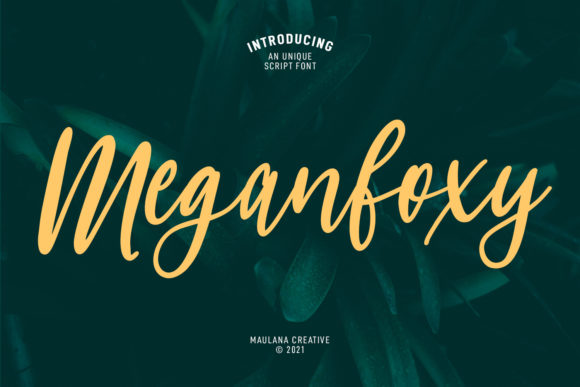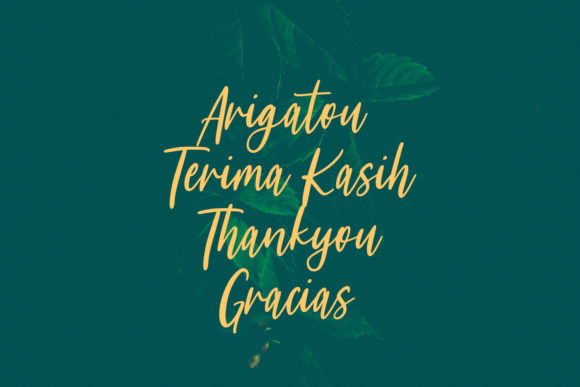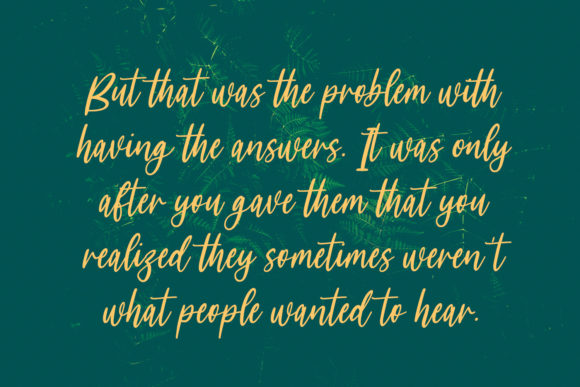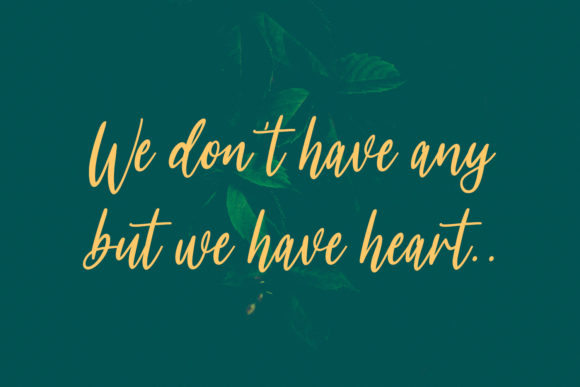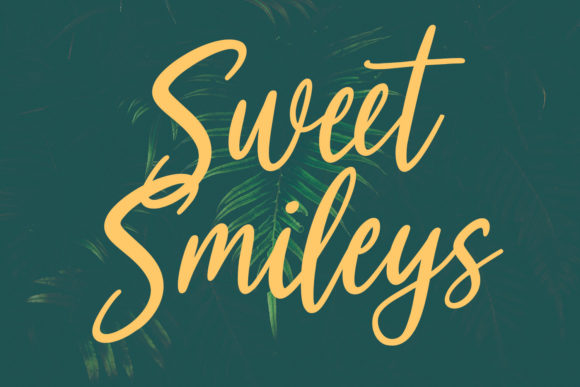
Meganfoxy Script Font
About Meganfoxy Script Font
Meganfoxy Script is a unique and elegant handwritten font. It looks beautiful on a variety of designs requiring a personalized style, such as wedding invitations, thank you cards, weddings, greeting cards, logos and so on.